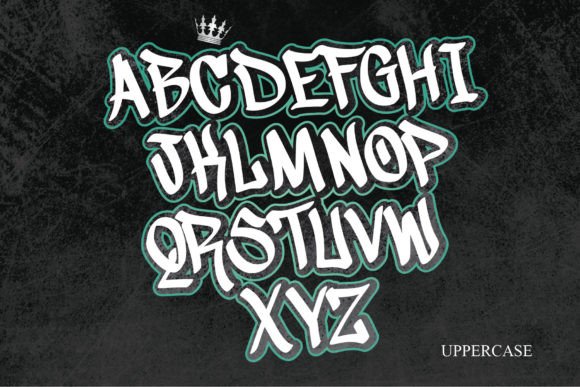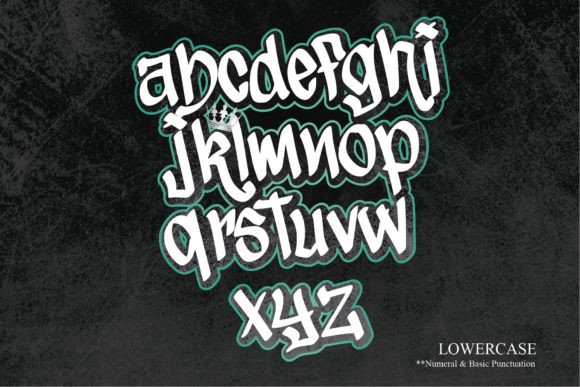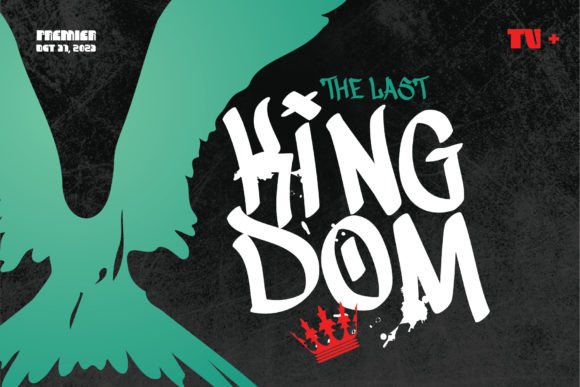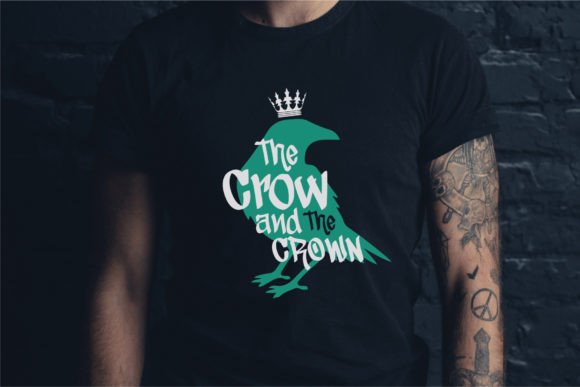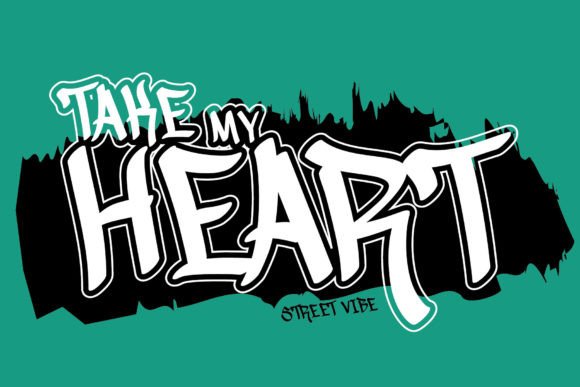
Unleash Your Creativity with Demons Font: The Ultimate Graffiti-Styled Blackletter Font
Are you a designer or crafter looking for a font that can add a touch of edginess and street art vibe to your designs? Look no further than Demons Font, an assertive graffiti-styled blackletter font that’s perfect for creating bold and eye-catching designs. In this article, we’ll explore the features and benefits of Demons Font, and show you how to make the most of this versatile font in your designs.
What is Demons Font?
Demons Font is a unique and stylish graffiti-styled blackletter font that’s inspired by the raw energy and rebellious spirit of street art. With its bold and assertive lines, Demons Font is perfect for creating designs that demand attention and exude a sense of confidence and attitude. Whether you’re designing a logo, T-shirt, book cover, poster, or sportswear, Demons Font is the perfect choice for adding a touch of edginess and sophistication to your work.
Key Features of Demons Font
So, what makes Demons Font so special? Here are some of its key features:
- Graffiti-styled blackletter font: Demons Font features a unique graffiti-styled blackletter design that’s perfect for creating bold and eye-catching designs.
- Street art vibe: With its raw energy and rebellious spirit, Demons Font is perfect for designs that require a street art vibe.
- Suitable for various designs: Demons Font is versatile and can be used for a wide range of designs, including logos, T-shirts, book covers, posters, sportswear, skateboards, and more.
Benefits of Using Demons Font
So, why should you choose Demons Font for your designs? Here are some of the benefits of using this amazing font:
- Adds a touch of edginess: Demons Font adds a touch of edginess and sophistication to your designs, making them stand out from the crowd.
- Perfect for bold designs: With its bold and assertive lines, Demons Font is perfect for creating designs that demand attention and exude confidence and attitude.
- Versatile: Demons Font can be used for a wide range of designs, making it a great addition to your font library.
- Increases creativity: Demons Font’s unique design and street art vibe can inspire your creativity and help you come up with innovative design ideas.
How to Use Demons Font in Your Designs
Using Demons Font in your designs is easy. Here are some tips to get you started:
- Choose the right design: Demons Font is perfect for designs that require a bold and edgy look. Choose designs that will benefit from its unique style.
- Experiment with different colors: Demons Font looks great in bold and bright colors. Experiment with different colors to find the one that works best for your design.
- Pair with other fonts: Demons Font can be paired with other fonts to create a unique and interesting design. Experiment with different font combinations to find the one that works best for your design.
Design Ideas Using Demons Font
Demons Font is versatile and can be used for a wide range of designs. Here are some design ideas to get you started:
- Logo design: Demons Font is perfect for creating bold and eye-catching logos that demand attention.
- T-shirt design: Demons Font looks great on T-shirts and can add a touch of edginess to your apparel designs.
- Book cover design: Demons Font can add a touch of sophistication and elegance to your book cover designs.
- Poster design: Demons Font is perfect for creating bold and eye-catching posters that grab attention.
- Sportswear design: Demons Font looks great on sportswear and can add a touch of edginess to your designs.
- Skateboard design: Demons Font is perfect for creating bold and eye-catching skateboard designs that demand attention.
| Font Name | Demons Font |
| Author | BB Type Studios |
Demons Font is an amazing graffiti-styled blackletter font that’s perfect for designers and crafters looking to add a touch of edginess and street art vibe to their designs. With its bold and assertive lines, Demons Font is perfect for creating designs that demand attention and exude confidence and attitude. Whether you’re designing a logo, T-shirt, book cover, poster, sportswear, skateboard, or more, Demons Font is the perfect choice. So, why wait? Download Demons Font today and unleash your creativity!